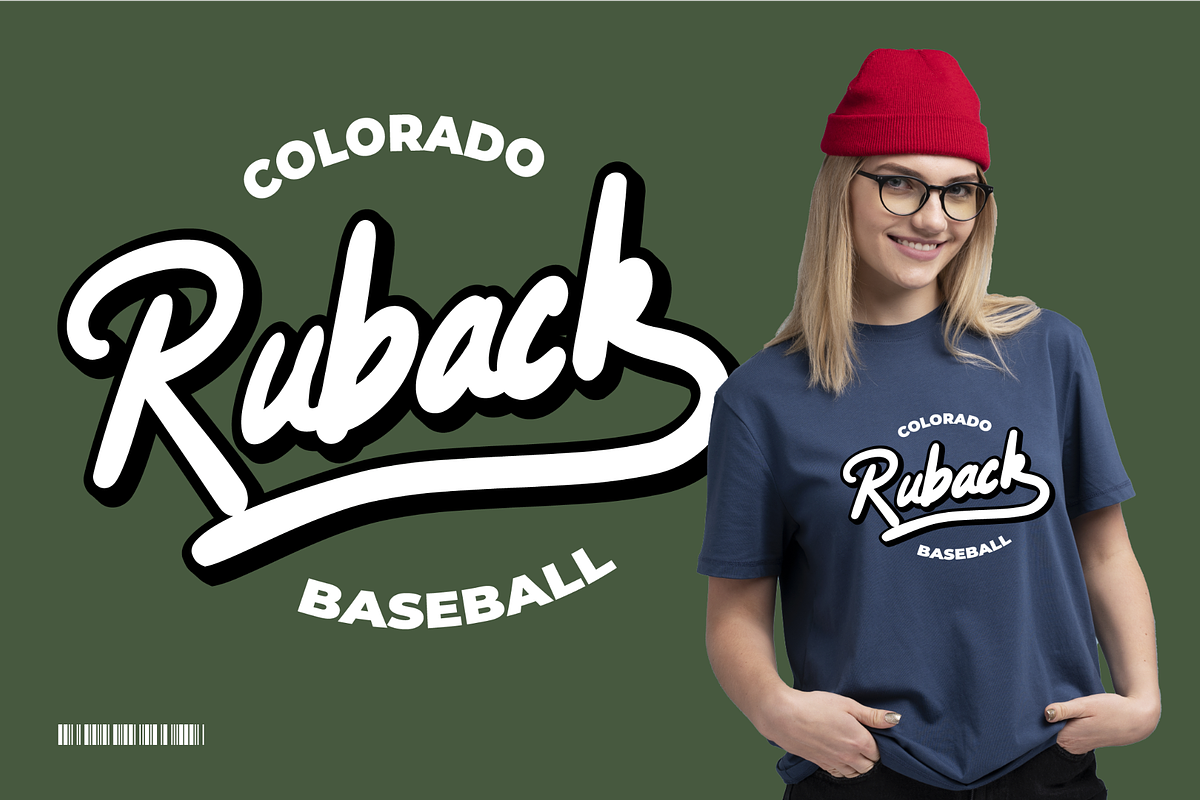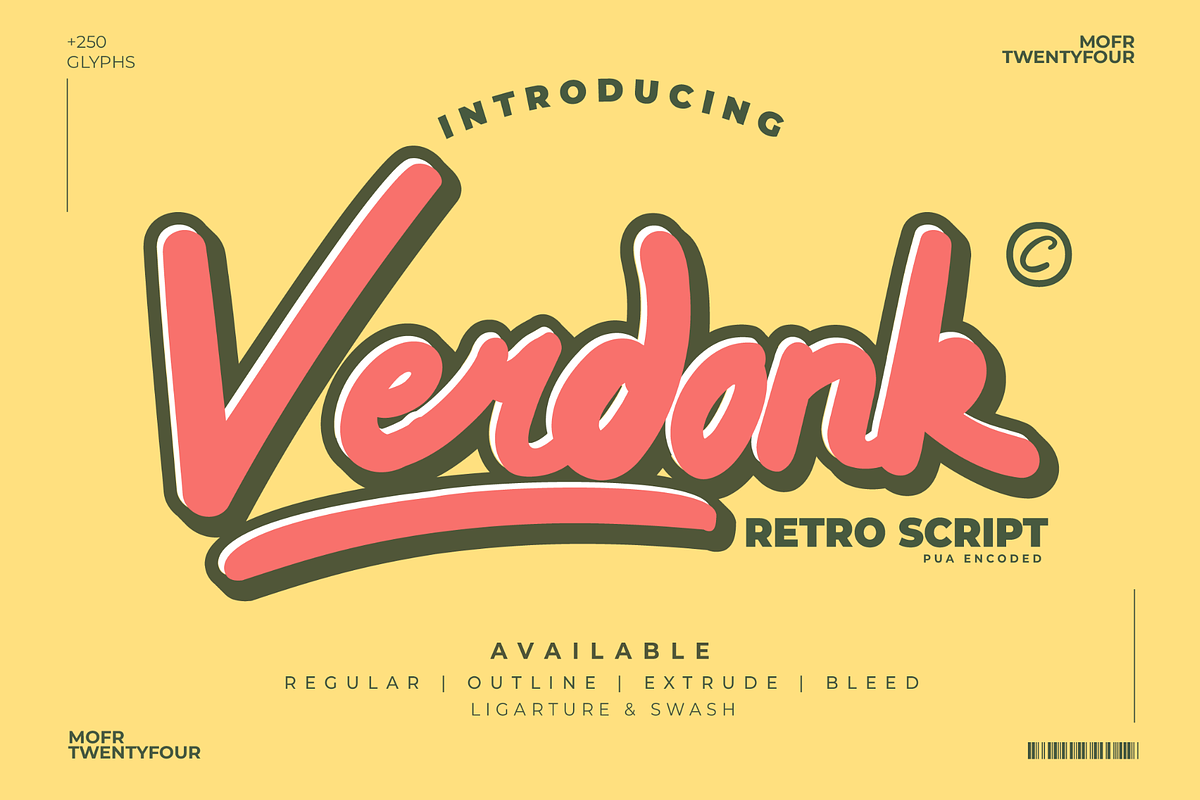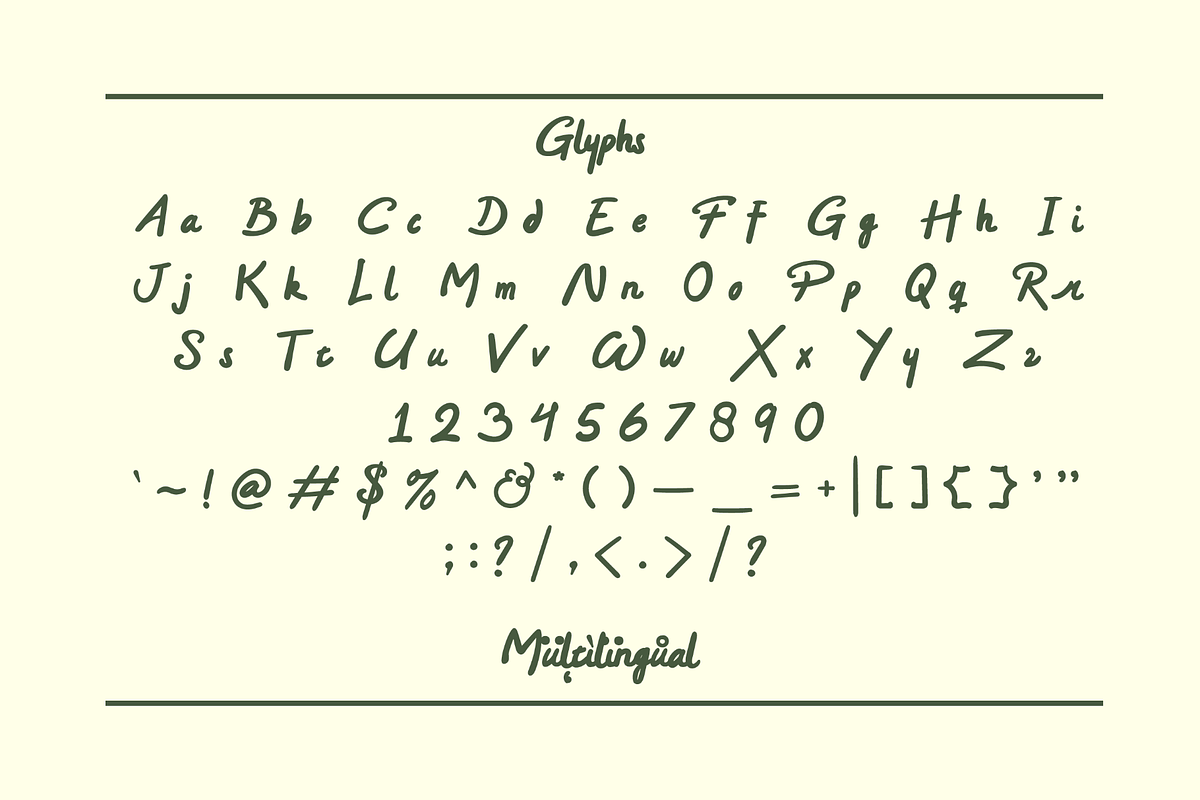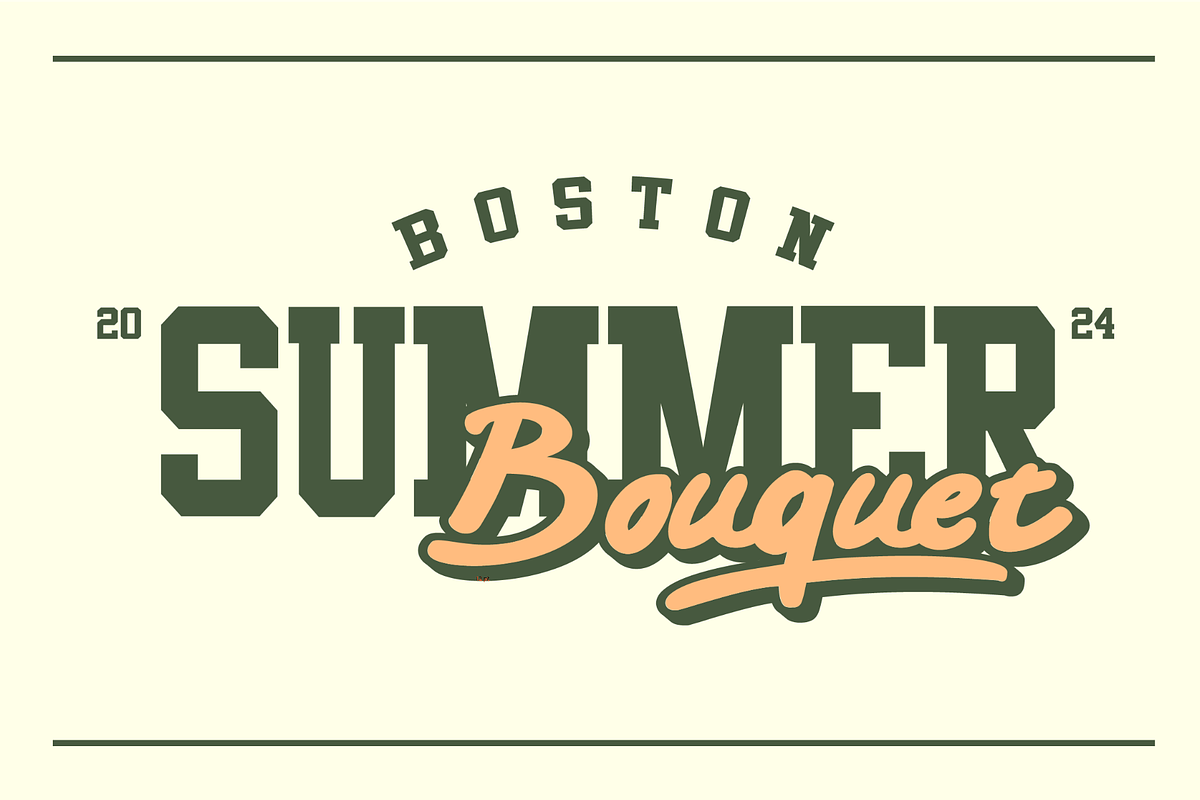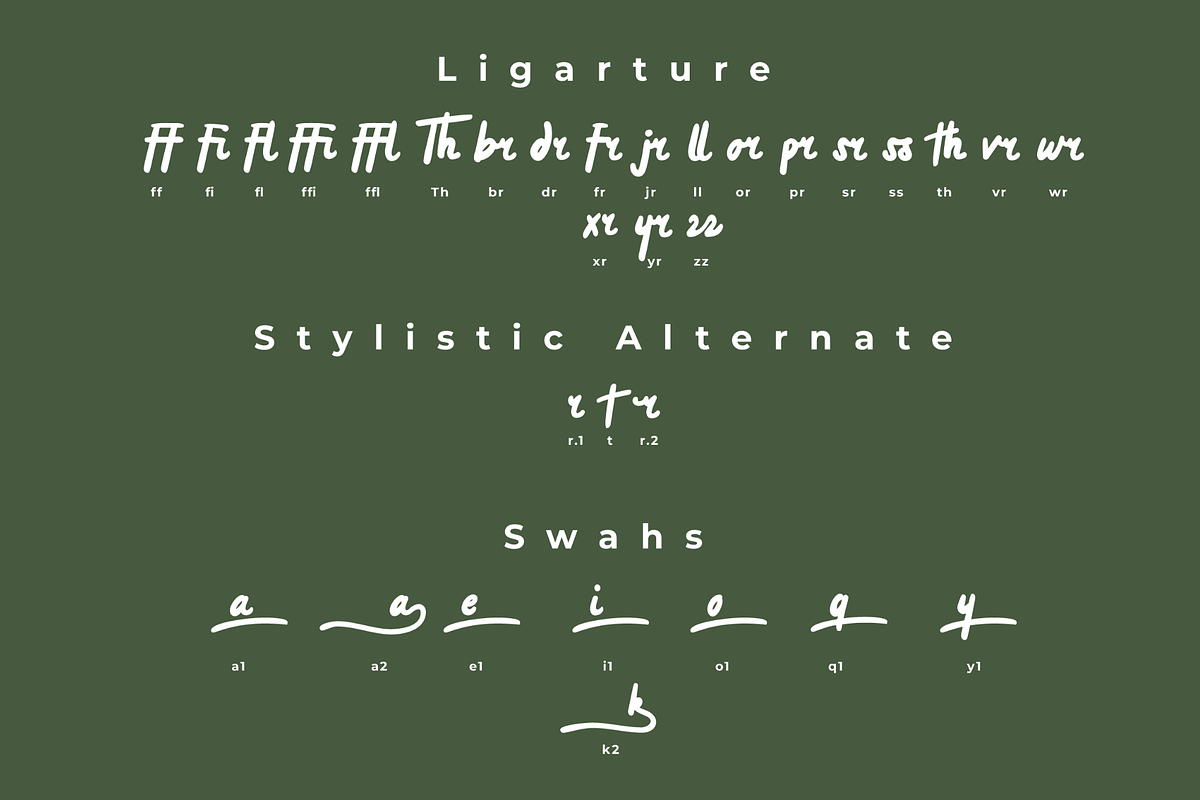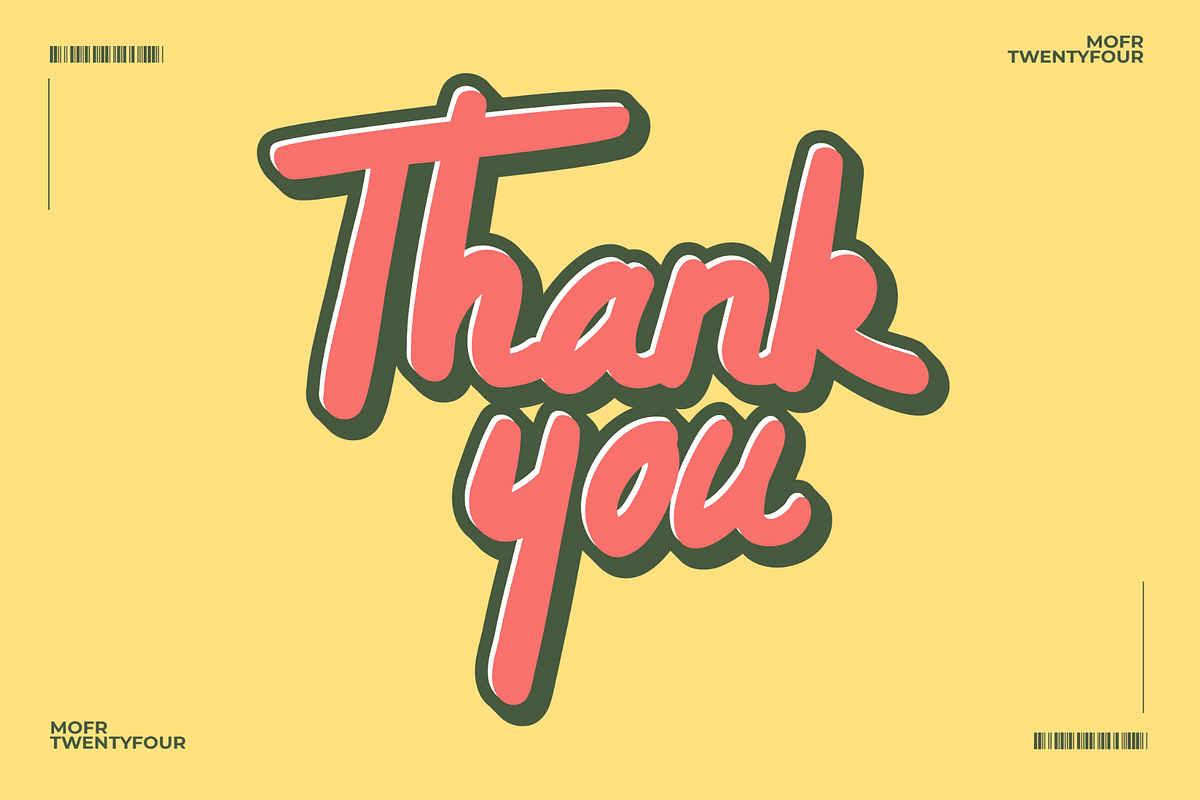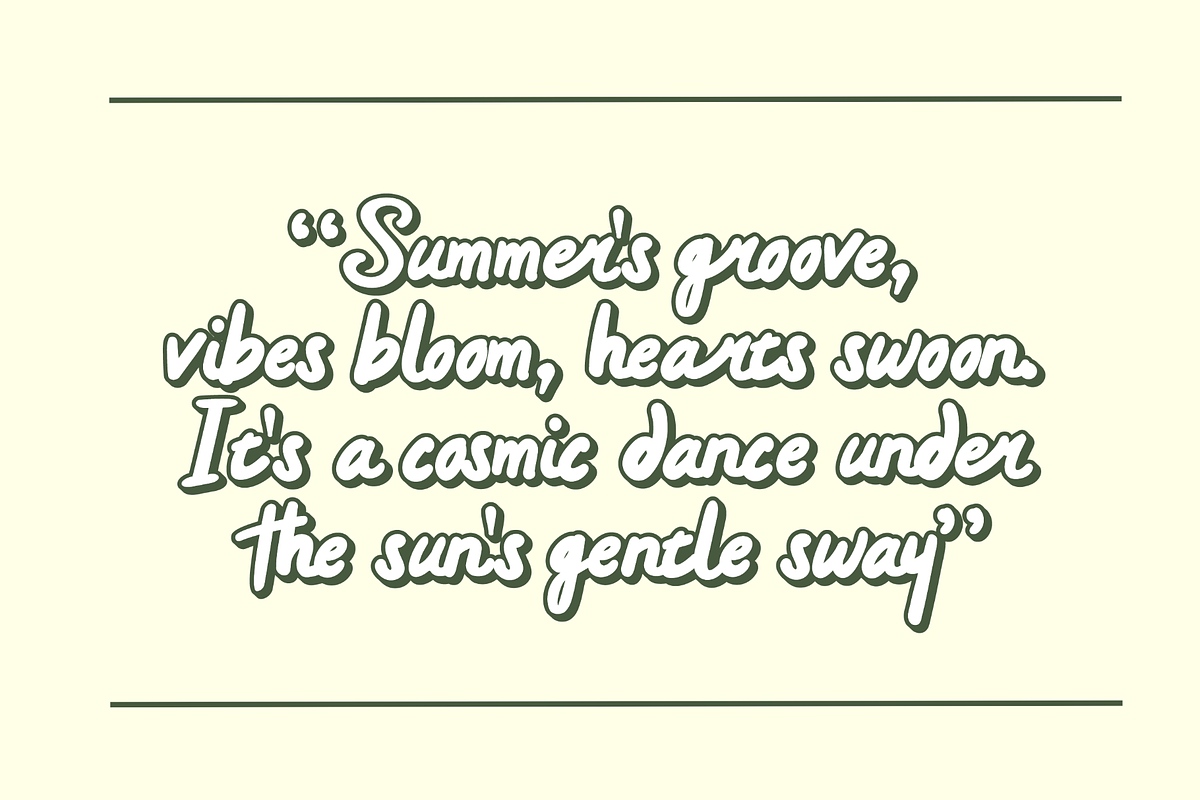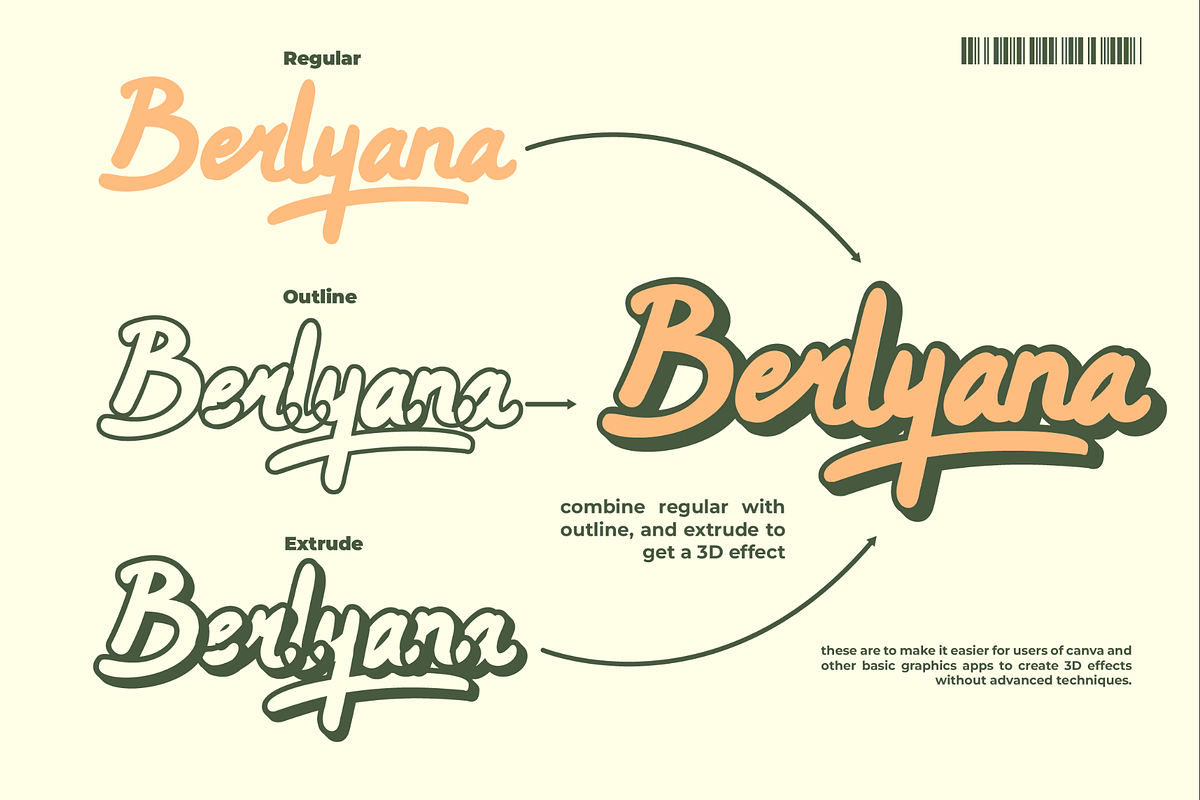
Verdonk - Retro Script Display
Unveiling Verdonk, a strikingly bold retro script font that radiates a rare blend of individuality and strength. Its nostalgic allure positions it perfectly for branding, typography, and display applications. Verdonk offers adaptability for an array of creative assignments. Whether it’s adding old-world charm to posters, providing evocative flair to quotes, or infusing T-shirt designs with a throwback vibe, Verdonk is a timeless font that enhances every artistic venture.